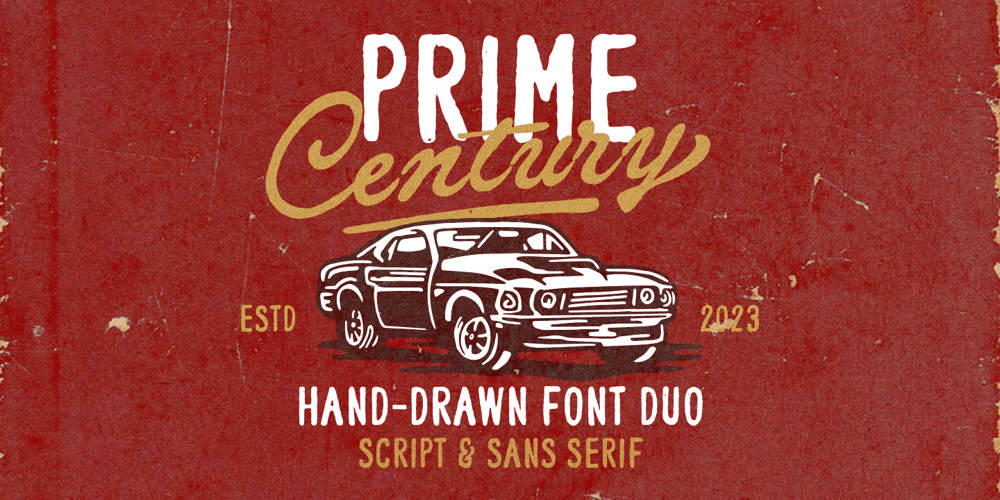
Prime Century Font Family was designed by Hendry Juanda and published by Letterhend. Prime Century contains 2 styles and family package options. Prime Century is an organic hand drawn font duo consist of a script paired with a sans serif with a touch of classic look and feel. This type of font perfectly made to be applied especially in logo, headline, signage and the other various formal forms such as invitations, labels, logos, magazines, books, greeting / wedding cards, packaging, fashion, make up, stationery, novels, labels or any type of advertising purpose.Features : Uppercase & lowercase Numbers and punctuation Alternates & Ligatures Multilingual PUA encoded